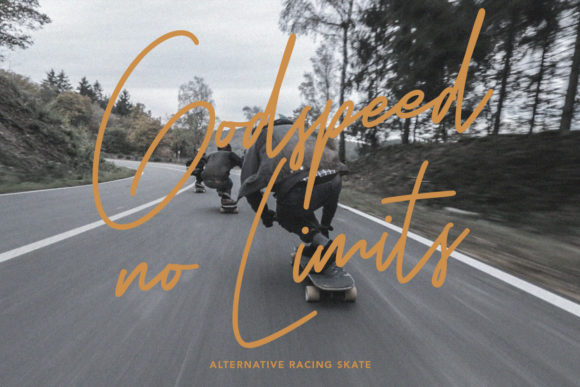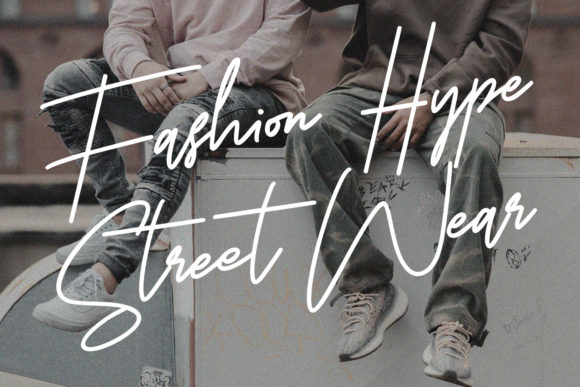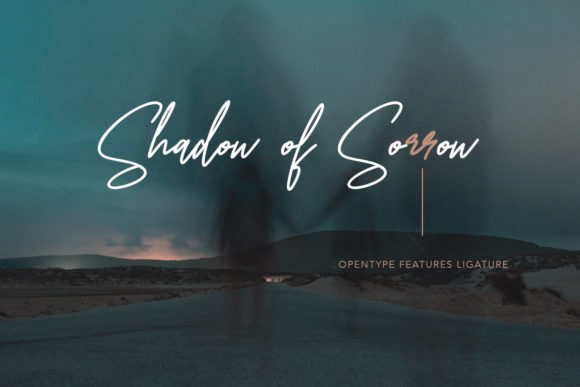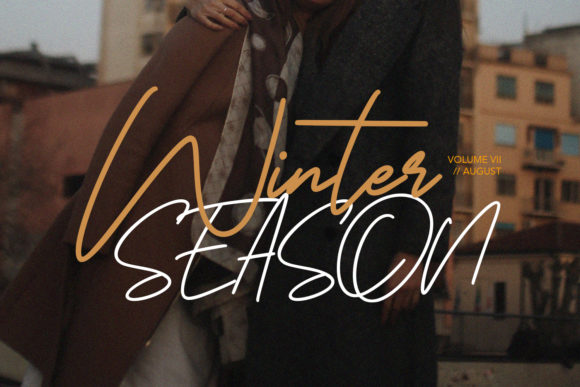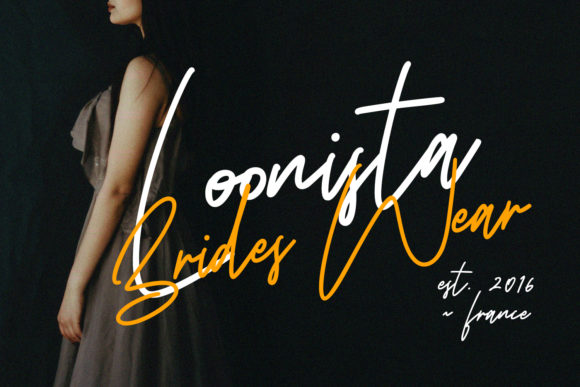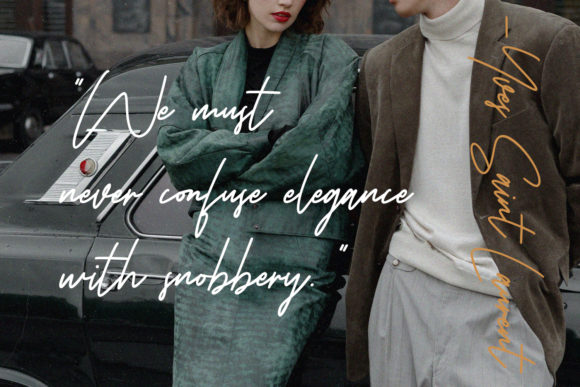
Introduction to Ballstomer Font
Ballstomer is a fashionable, elegant and cursive handwritten font.
It looks beautiful on a variety of designs requiring a personalized style, such as wedding invitations, thank you cards, weddings, greeting cards, logos and so on .